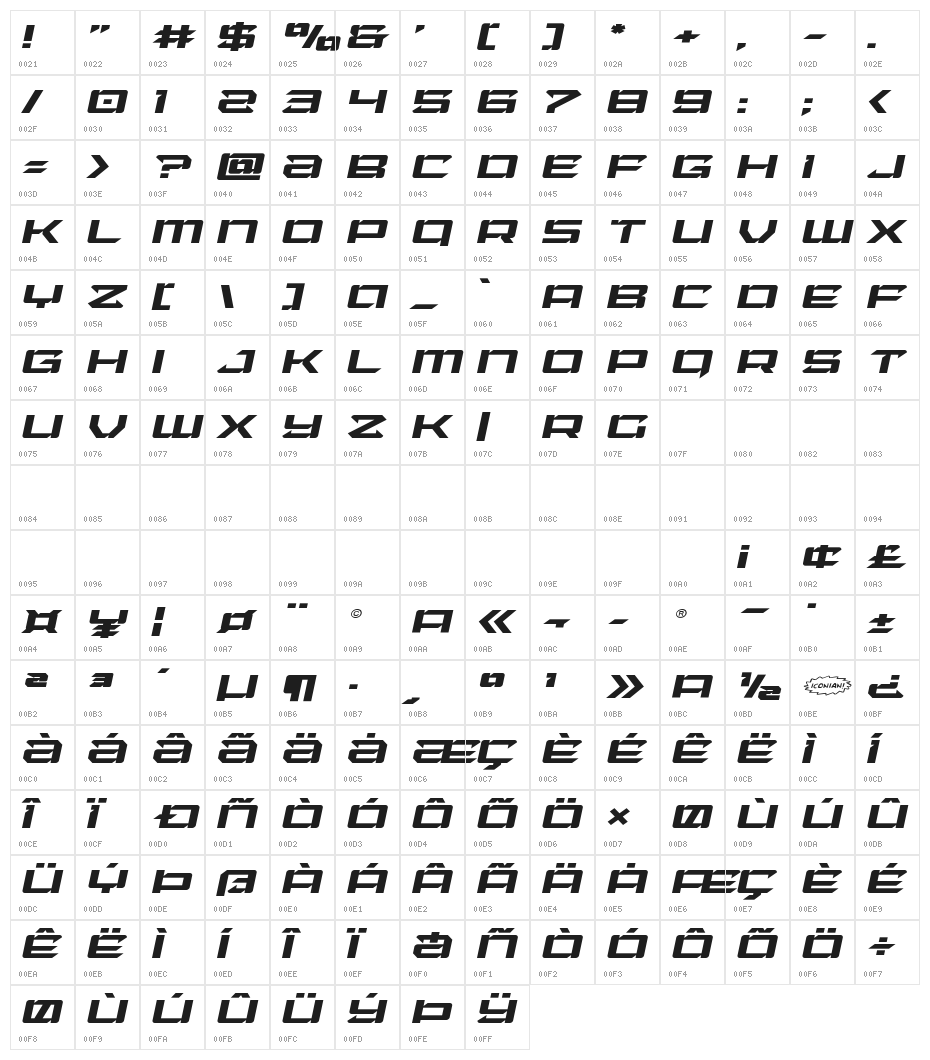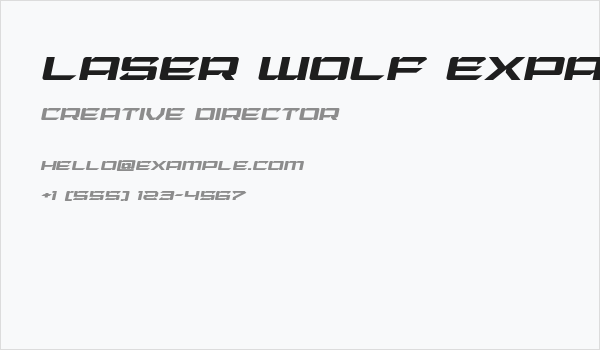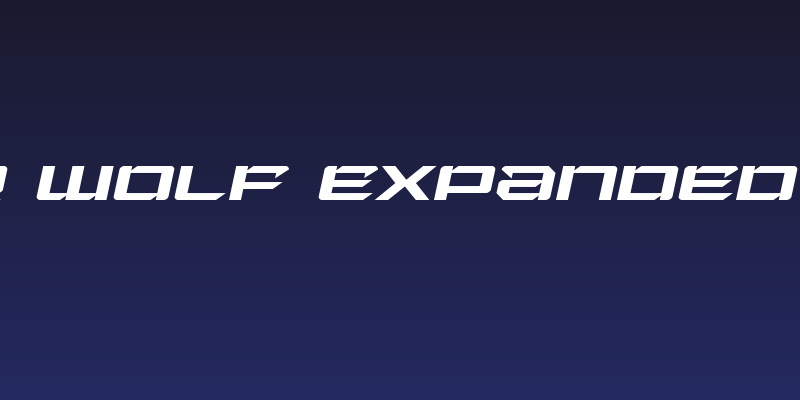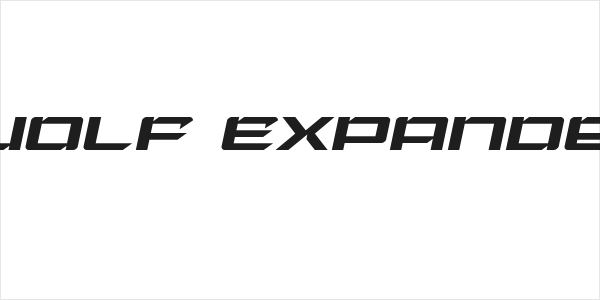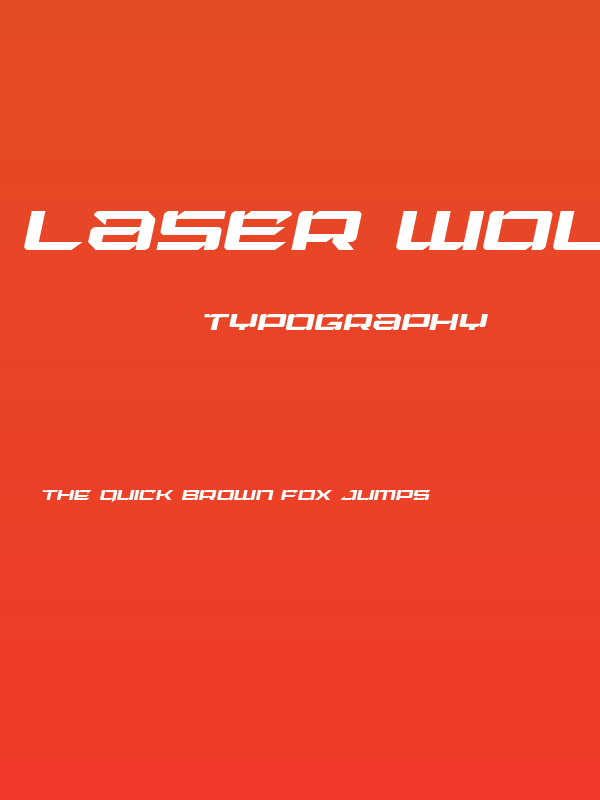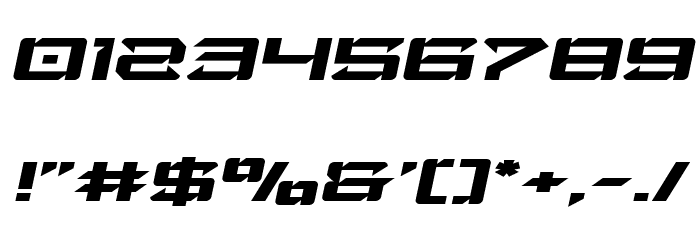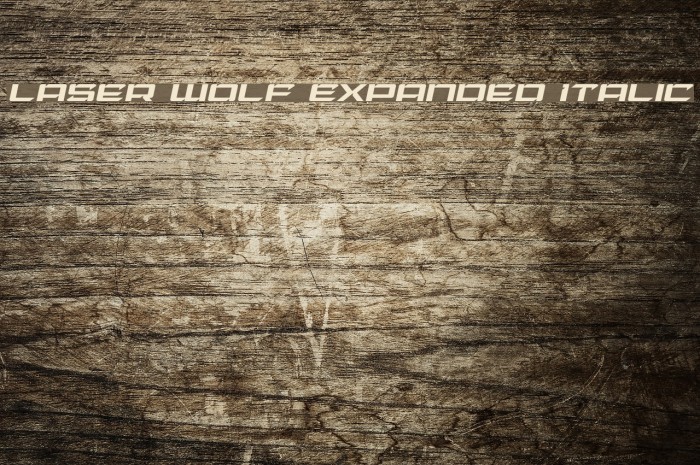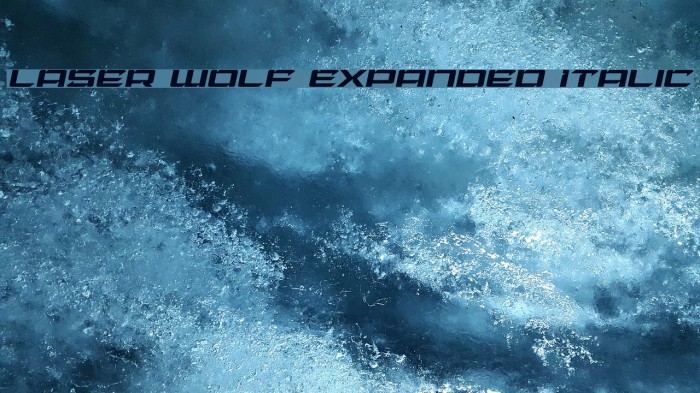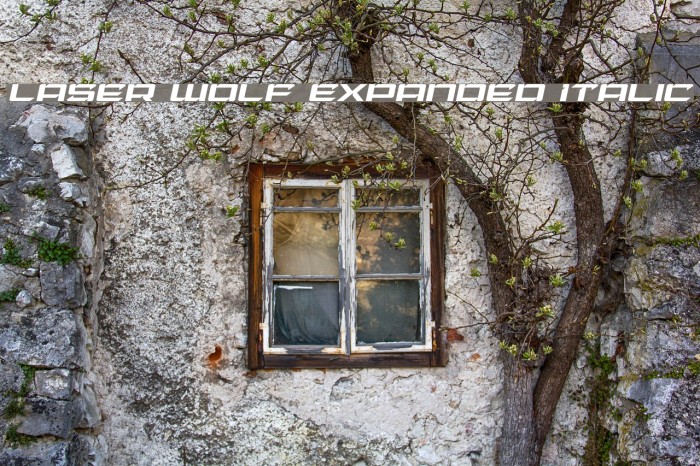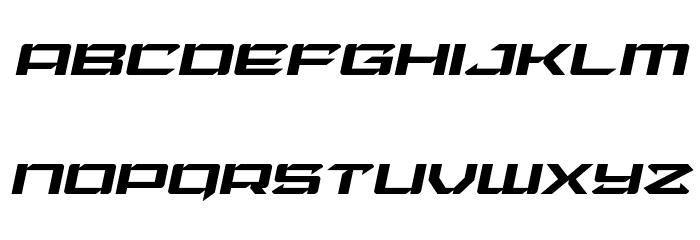
Laser Wolf Expanded Italic Font
This font features a futuristic and dynamic design with sharp, angular edges and a distinct italic slant. The characters are bold and wide, giving a sense of speed and modernity. The uppercase and lowercase letters maintain a consistent style, with a geometric structure that emphasizes horizontal lines. Numbers and special characters follow the same aesthetic, ensuring uniformity across all glyphs. The font's expanded width and italic style make it stand out, ideal for projects that require a bold statement.
| Proposed Projects | Ideal for sci-fi themed designs, video game titles, tech branding, and dynamic posters. |